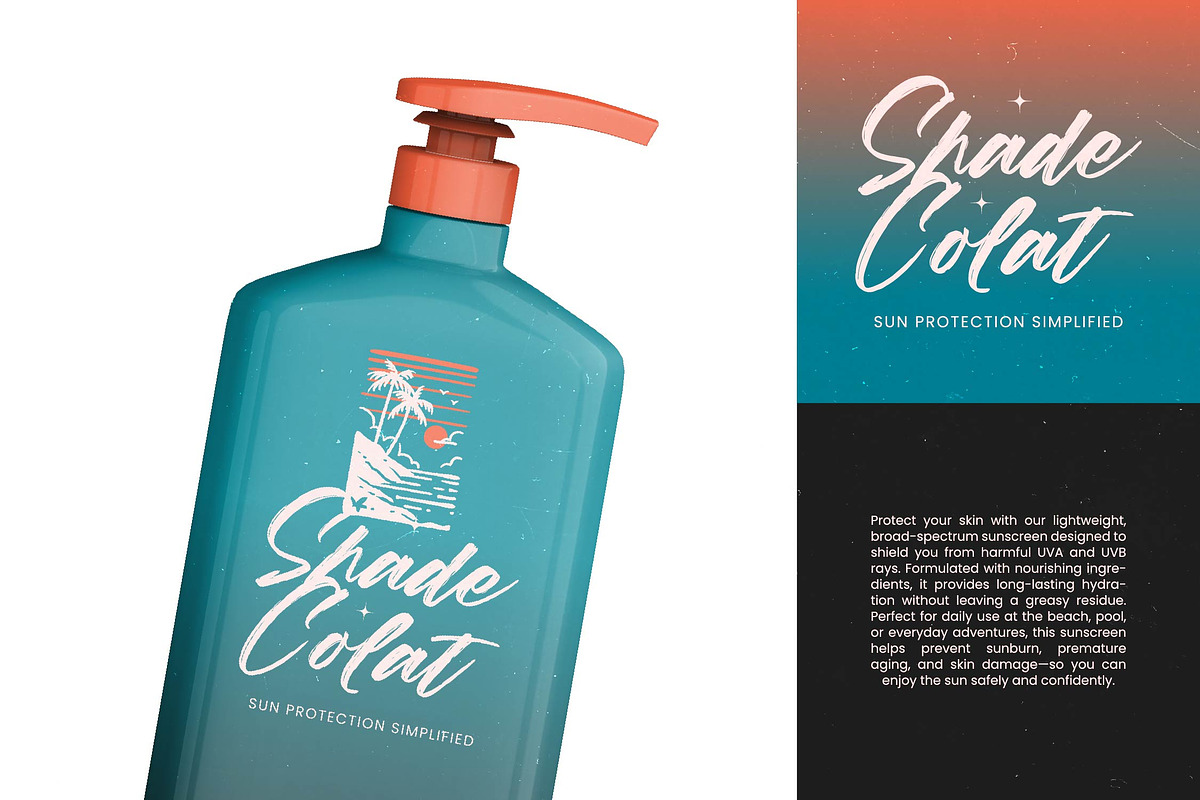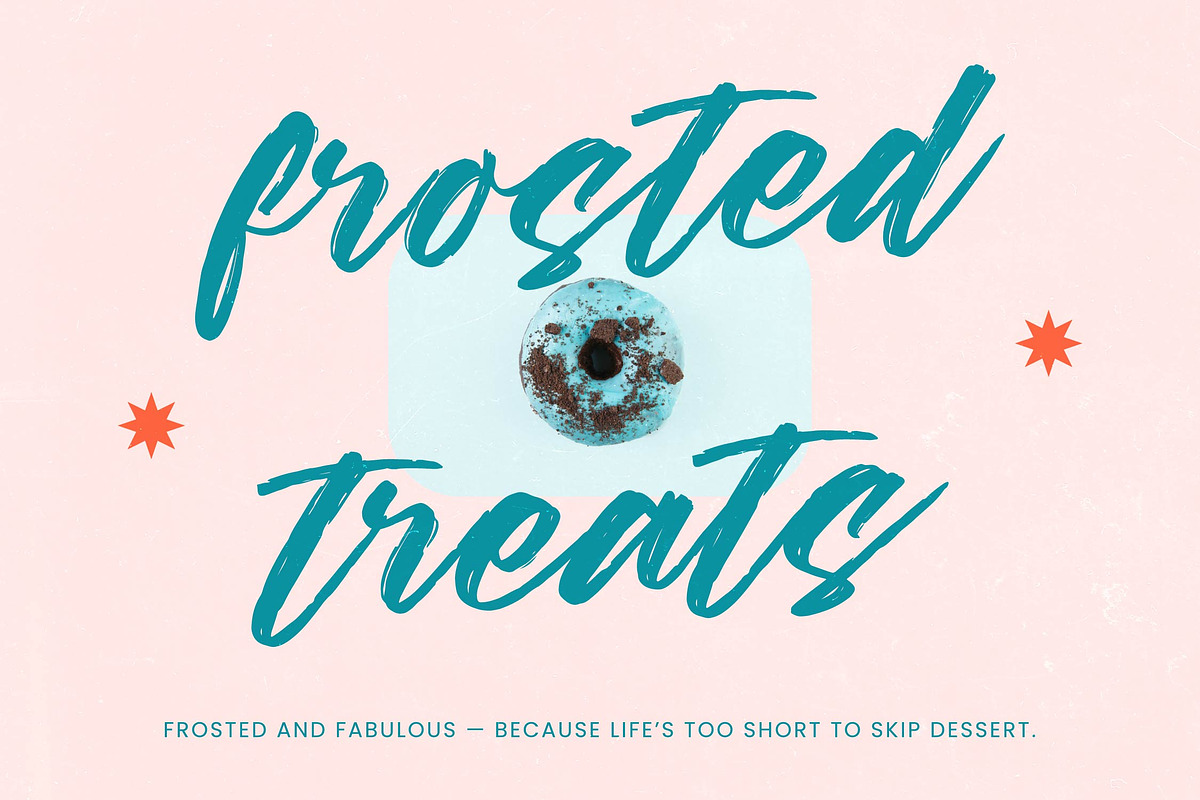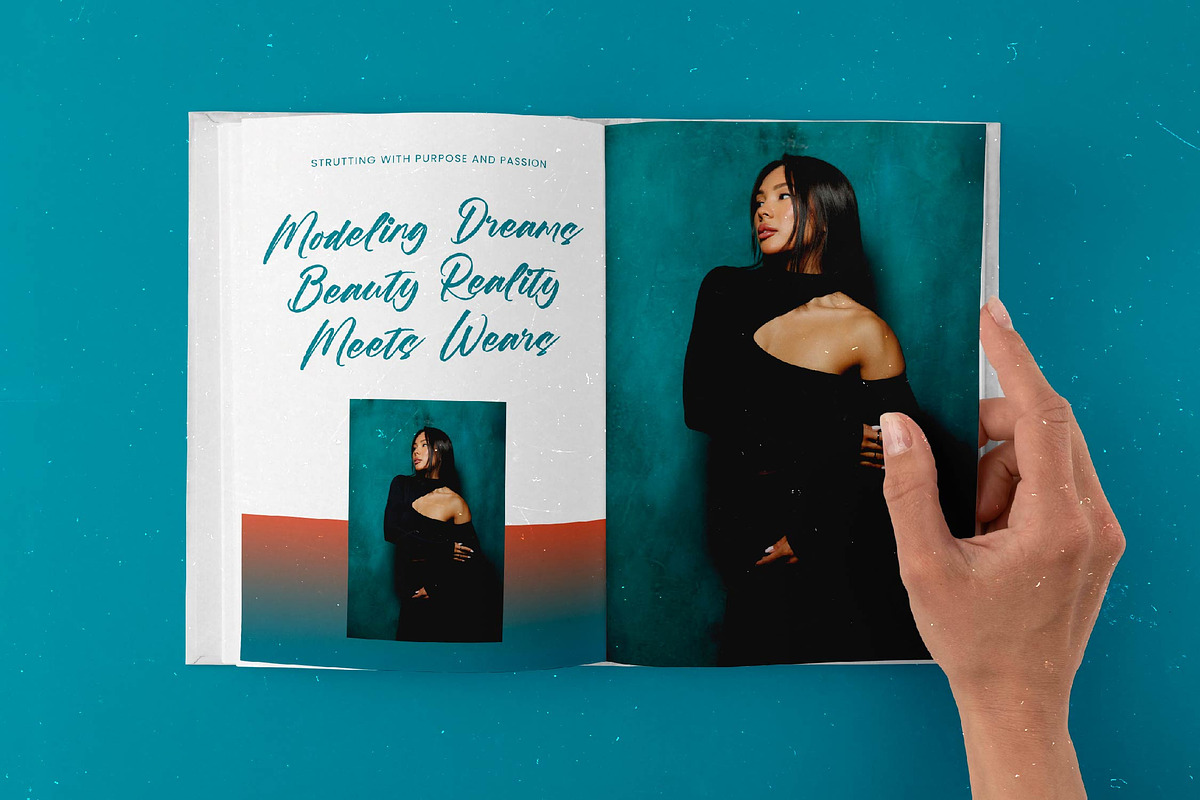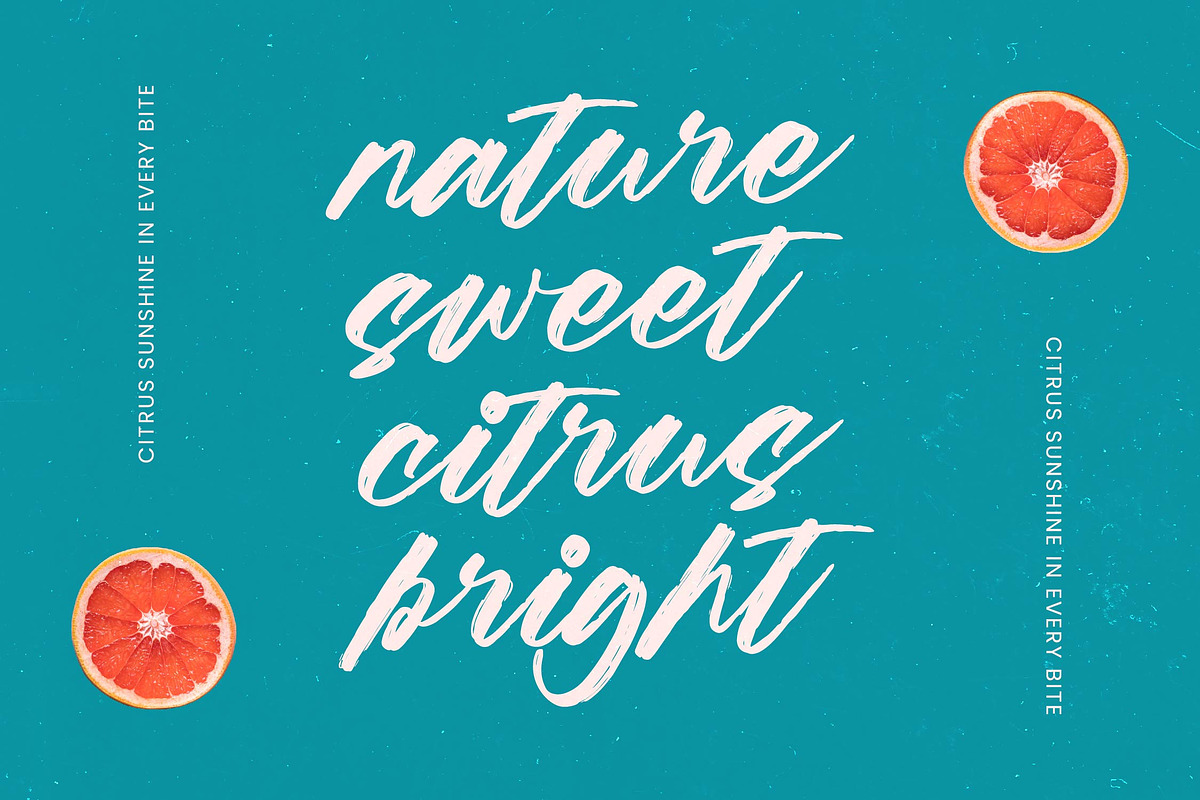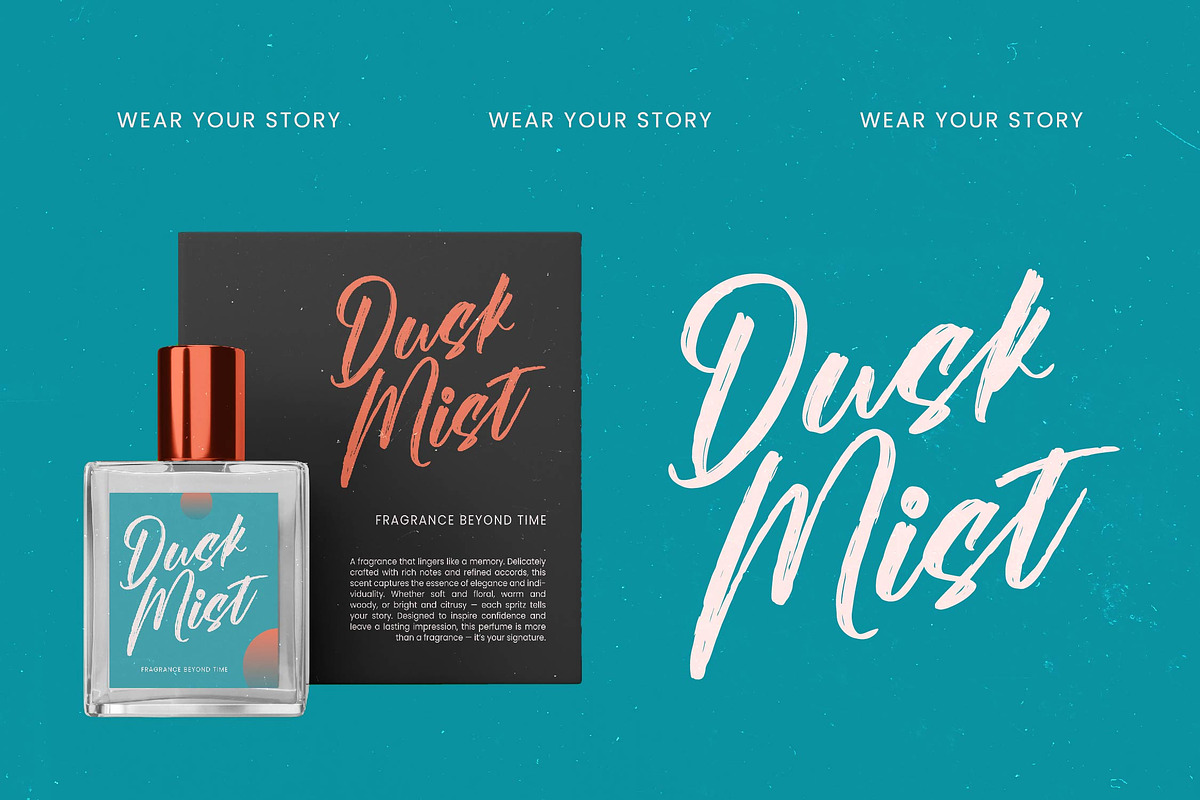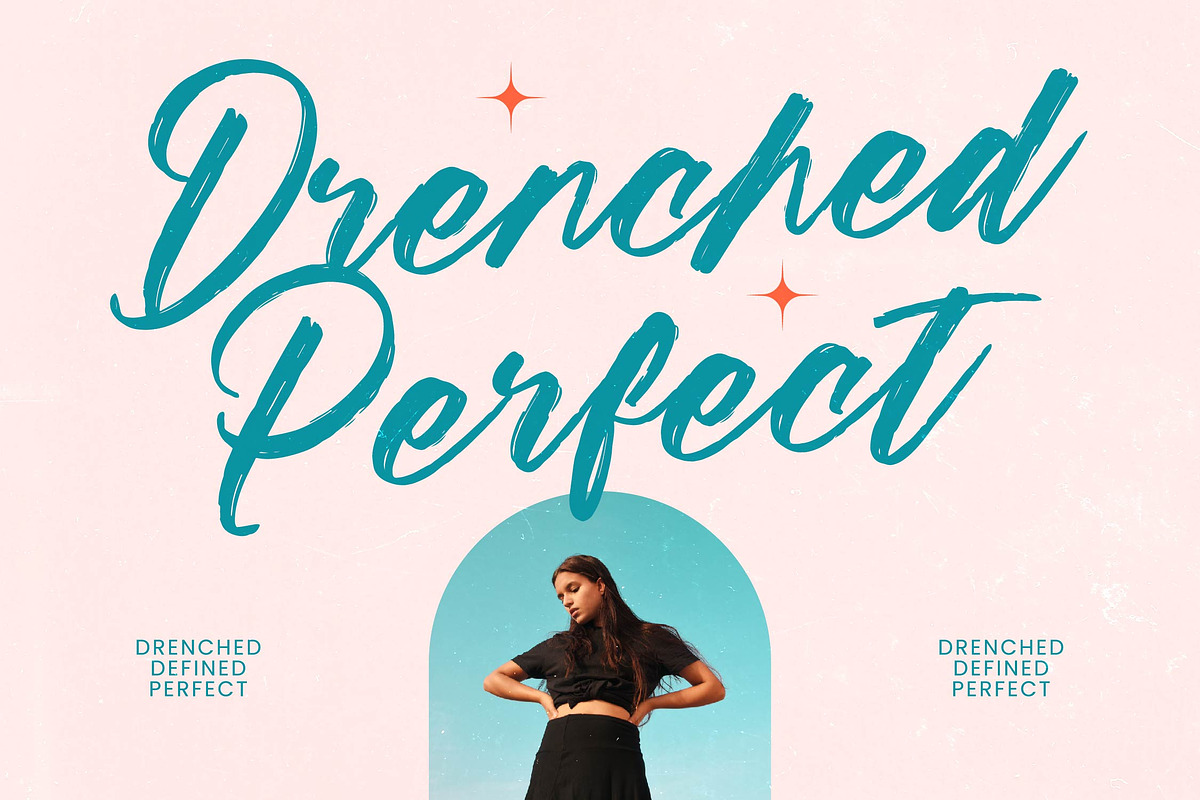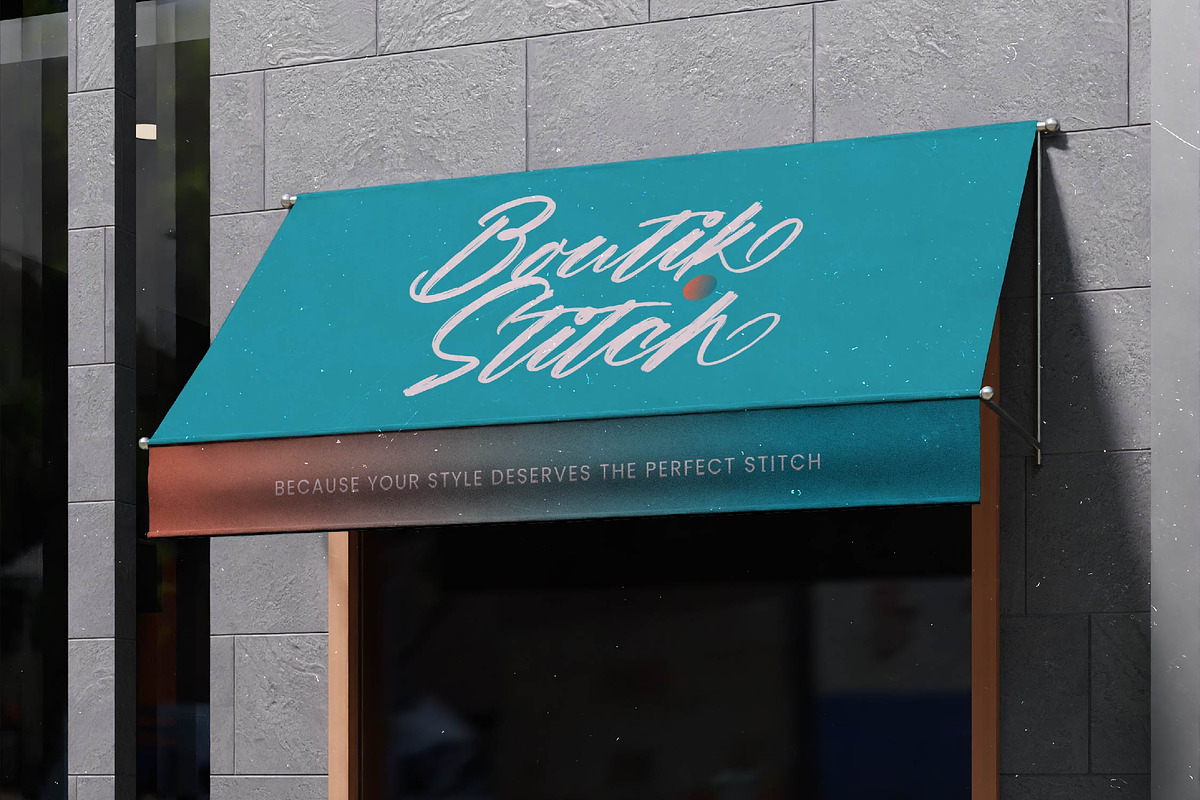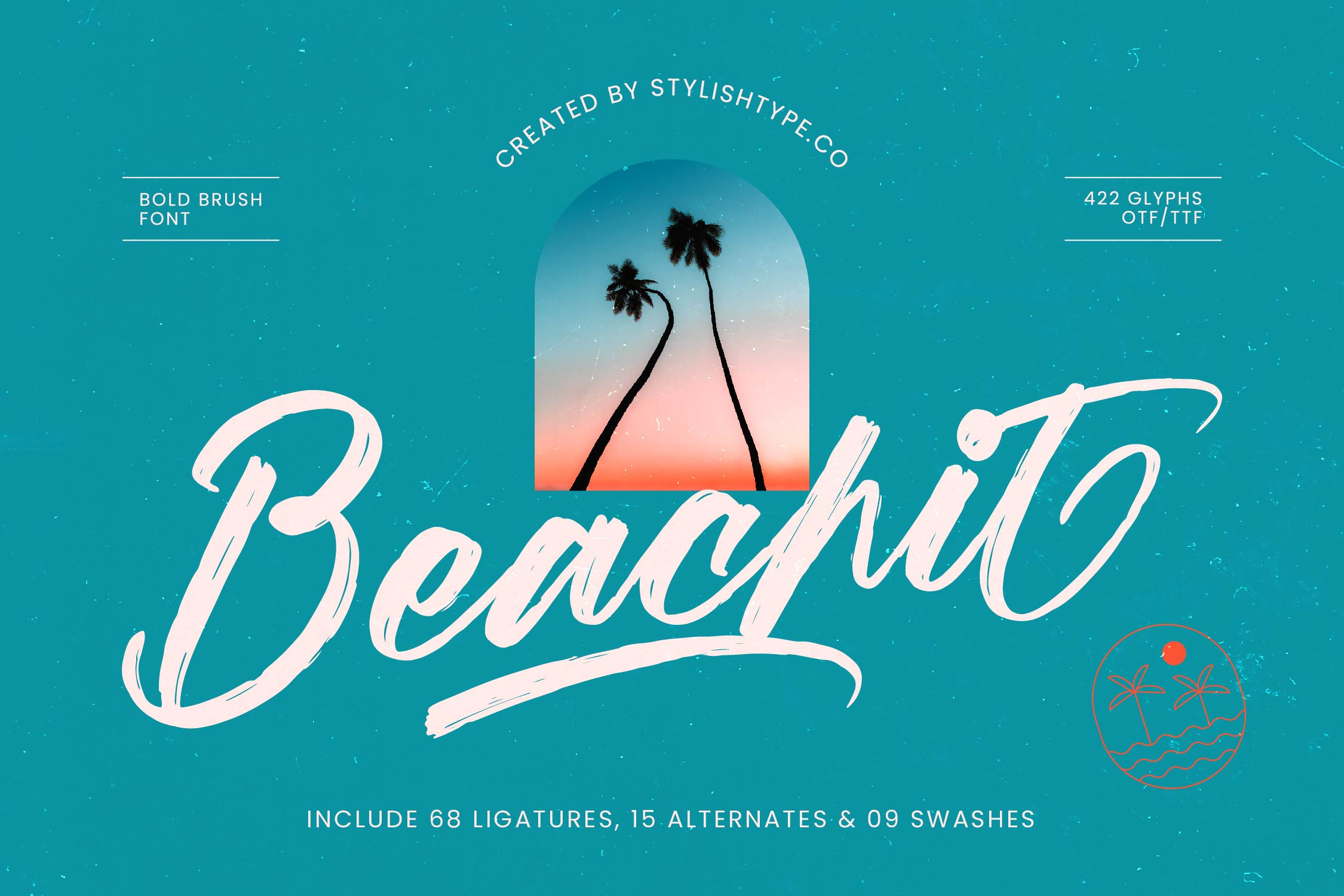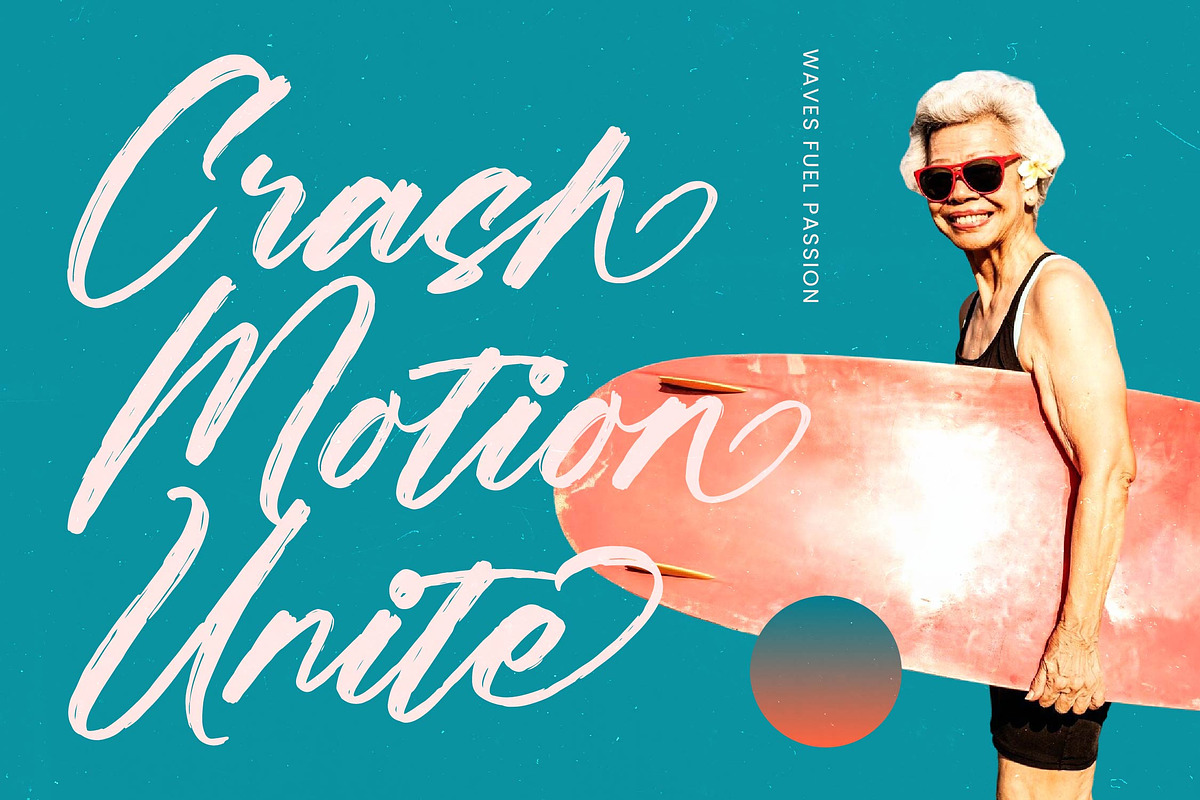
Beachit Bold Brush Font
Beachit - Bold Brush Font , from Stylishtype.Co , Suitable for any projects such as: logos, branding projects, homeware designs, product packaging, mugs, quotes, posters, shopping bags, t-shirts, book covers, name card, invitation cards, greeting cards, label, photography, watermark, special events, and all your other luxury and beautiful projects that need a Luxury Script taste.